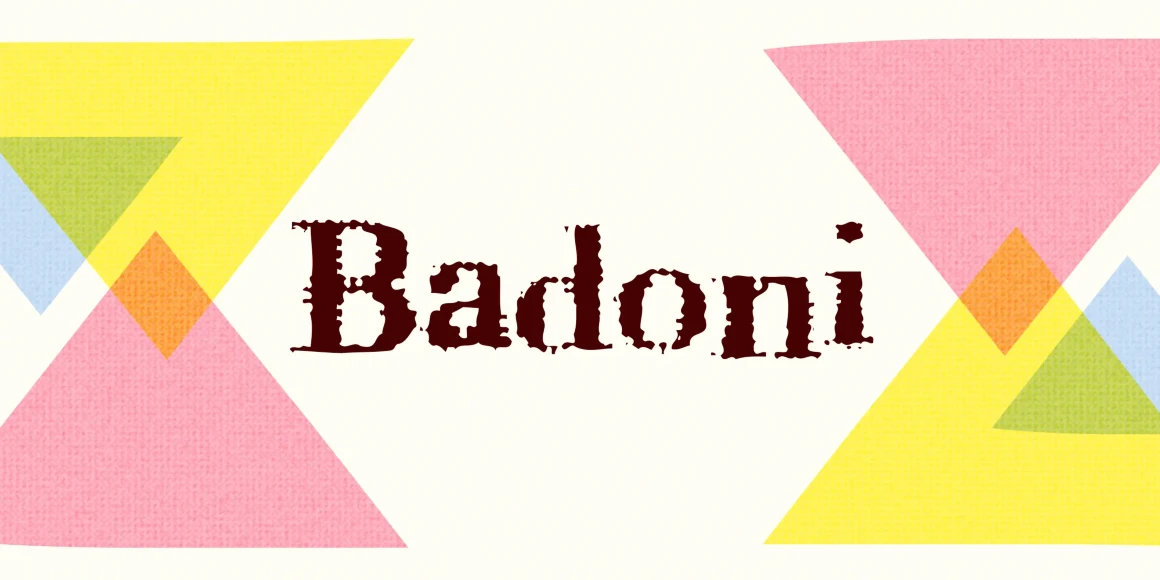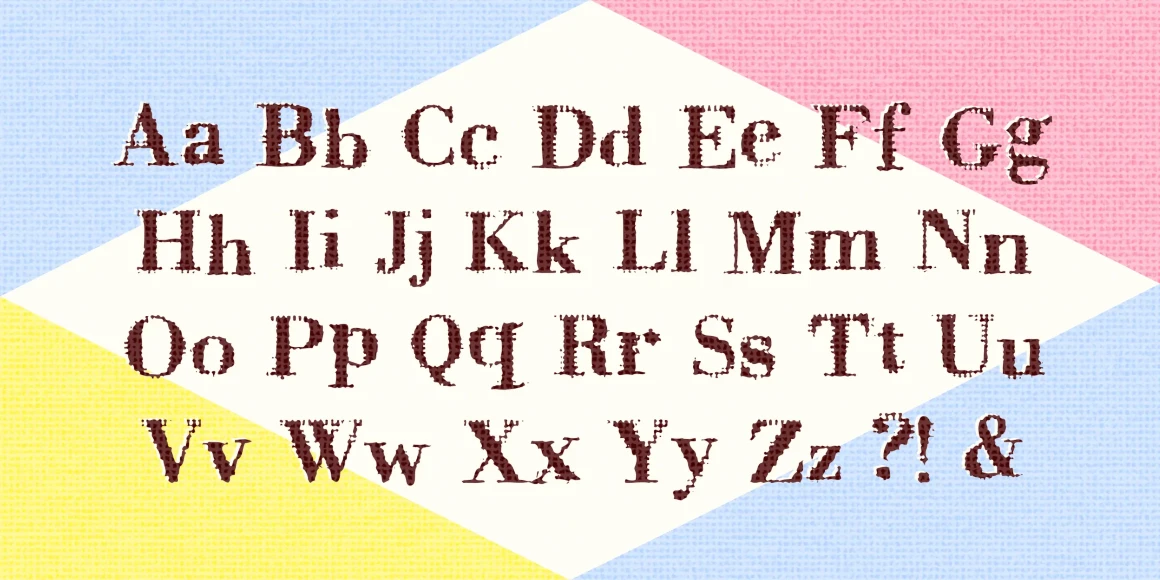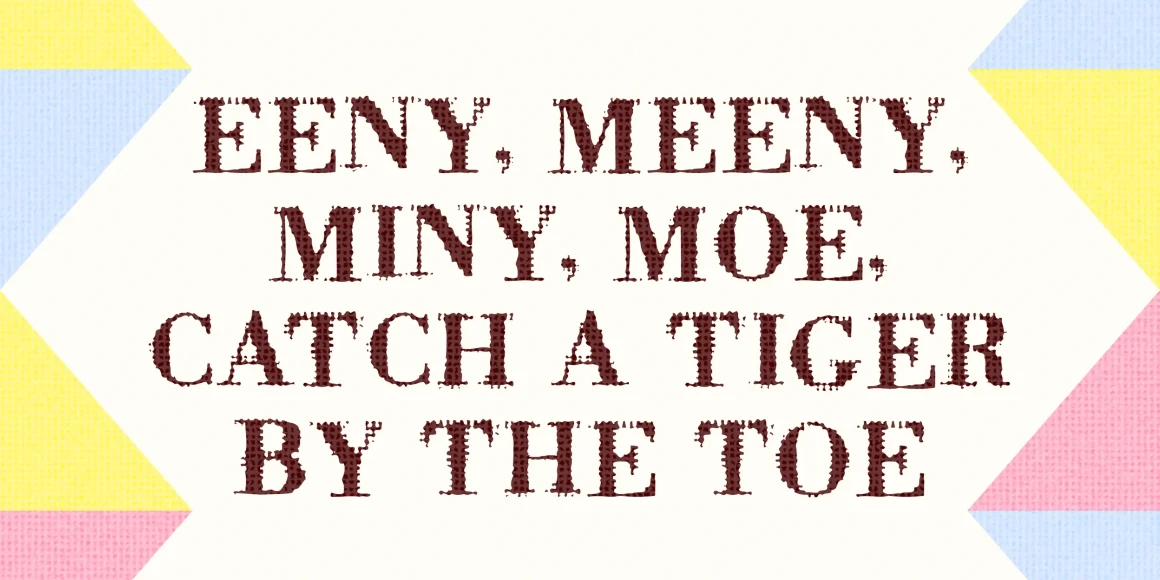
Badoni
From Chank Co
“Grunge Typography? I invented it!” claims Chank Diesel. Badoni was created in 1993 for use in CAKE, a fanzine that reveled in grunge music. As creative director of CAKE, Chank wanted the magazine’s design to reflect the music it glorified. Kurt Cobain was alive and miserable. Soundgarden had long hair. Seattle was everywhere. Chank’s answer was Badoni, a gritty and distressed typeface that is a sign of the grunge glory years.
Designed by Chank Diesel